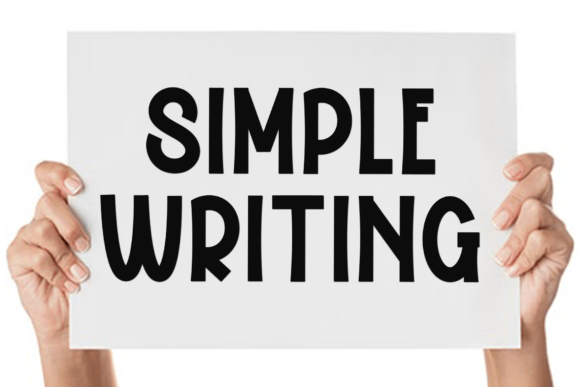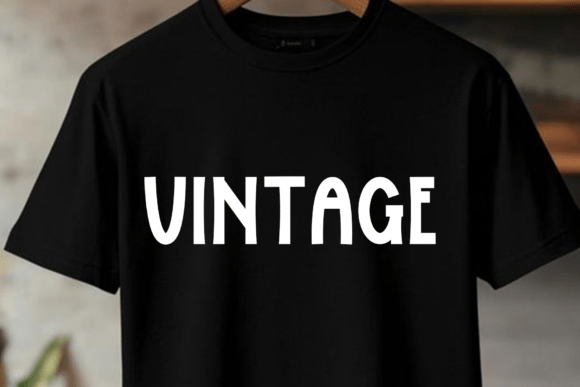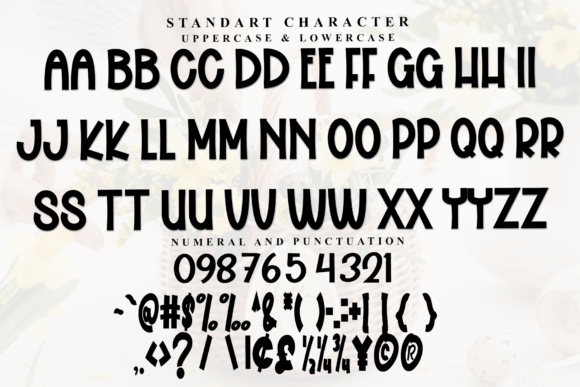
Alphabet School Font
Alphabet School is a sweet and friendly handwritten font. Its natural and unique style makes it incredibly fitting to a large pool of designs. The only limit is your imagination!